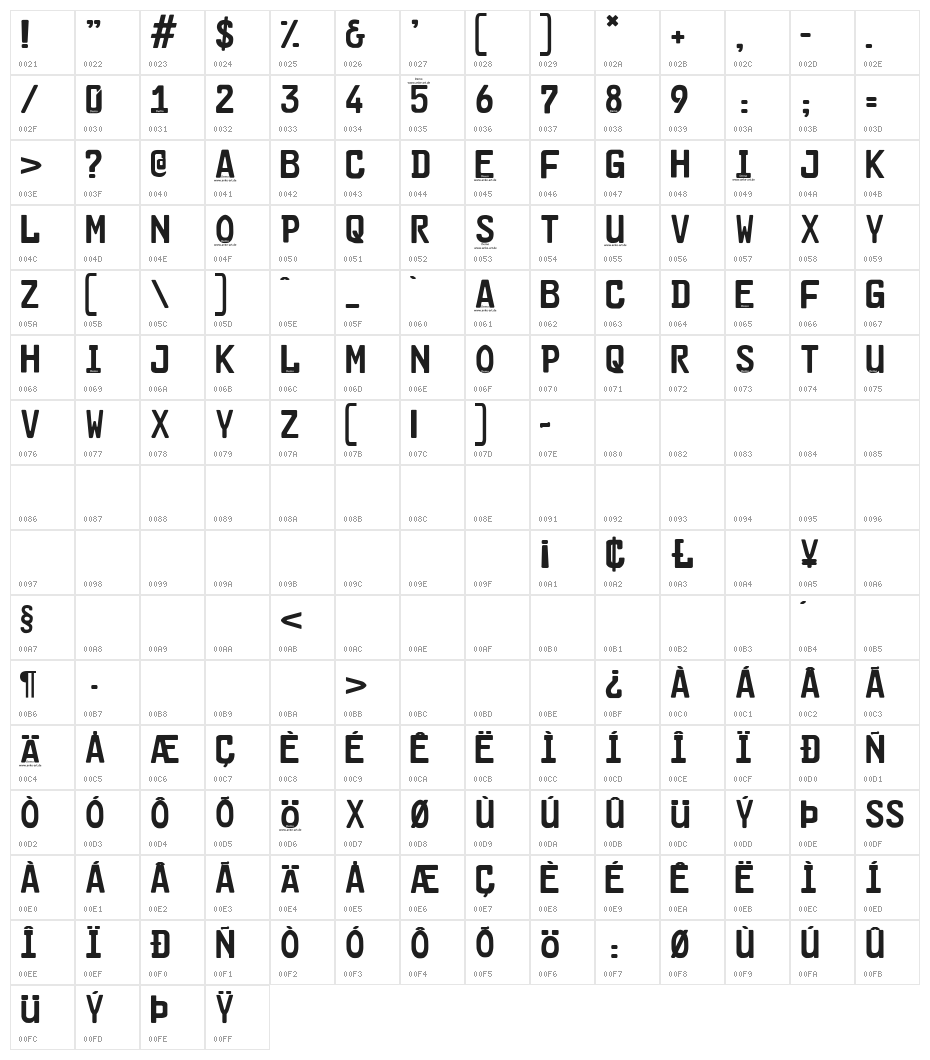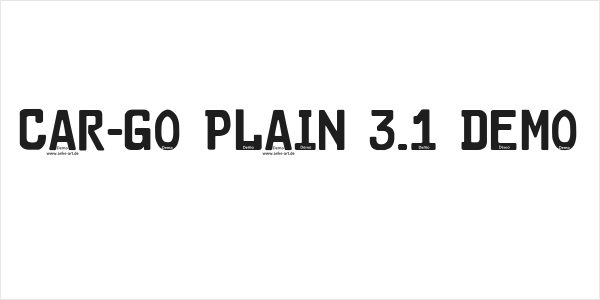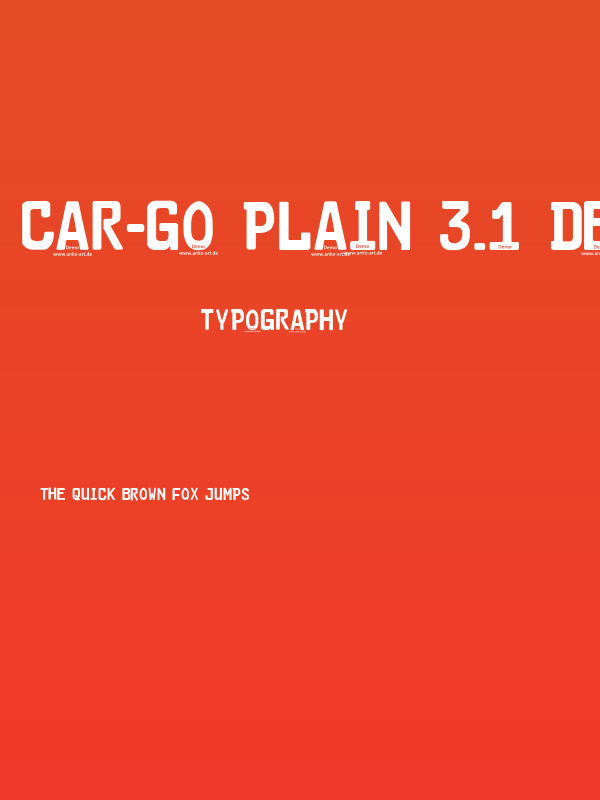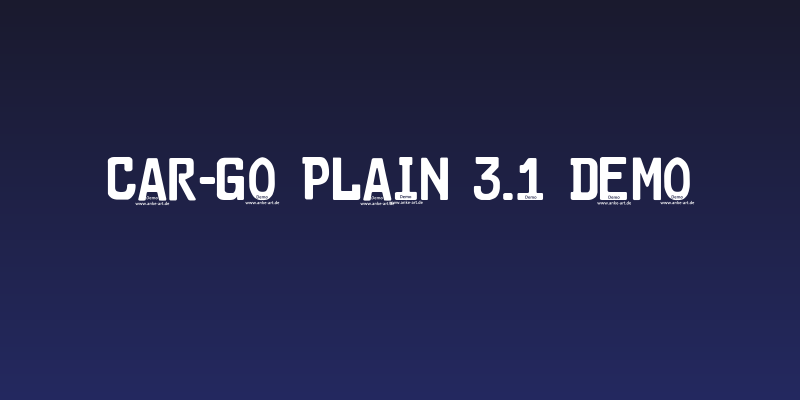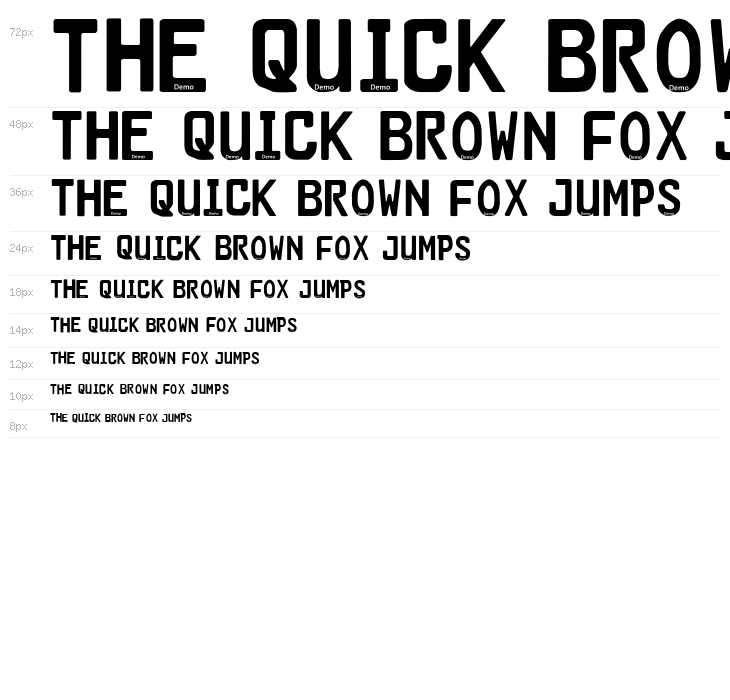
Car-Go Plain 3.1 Demo Font
Car-Go Plain 3.1 Demo Description
This font features a bold, geometric style with a modern and industrial feel. The characters are constructed with thick, uniform strokes, giving them a sturdy and robust appearance. The design is clean and straightforward, with slightly rounded corners that soften the overall look. The uppercase and lowercase letters maintain a consistent height, contributing to a cohesive and balanced aesthetic. The numerals are equally bold and clear, ensuring readability. Special characters are designed to match the boldness and style of the alphabet, making this font versatile for various applications.
| Use Case | Headlines, Logos, Signage |
| Proposed Projects | Ideal for branding, signage, posters, and any project requiring a strong, modern typeface. |